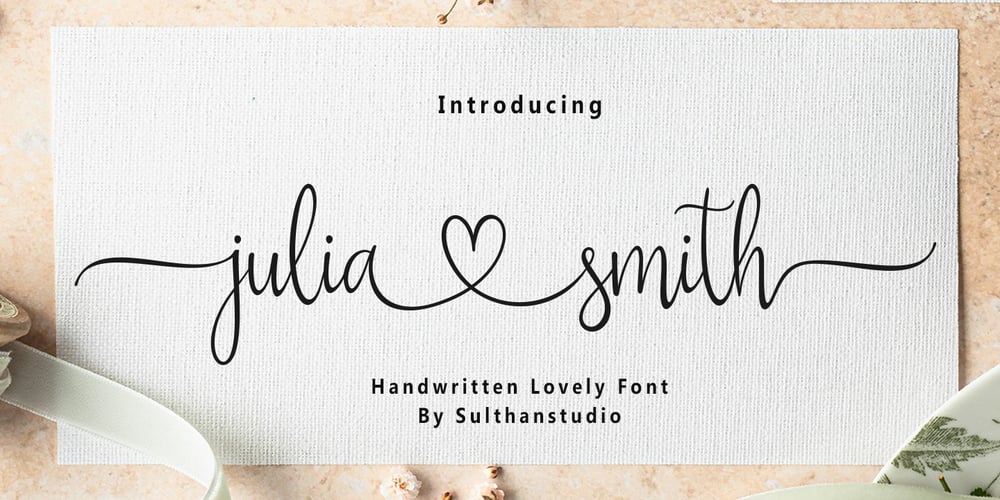
Julia smith
Julia smith font
Julia smith Font Family was designed by Nasrullah and published by Sulthan Studio. Julia smith contains 1 styles and family package options. is a unique handwritten font with thick and thin lines that is very synonymous with today’s calligraphy style. This font is very cool and beautiful and can be used wherever you want.